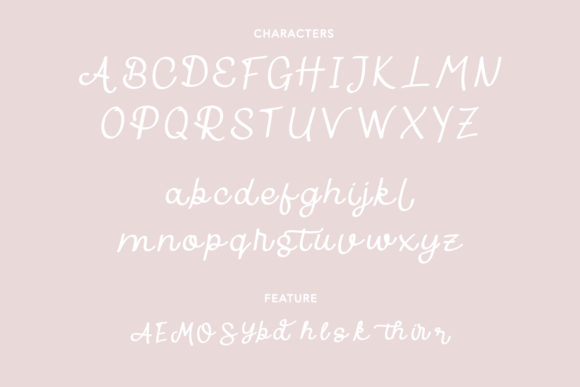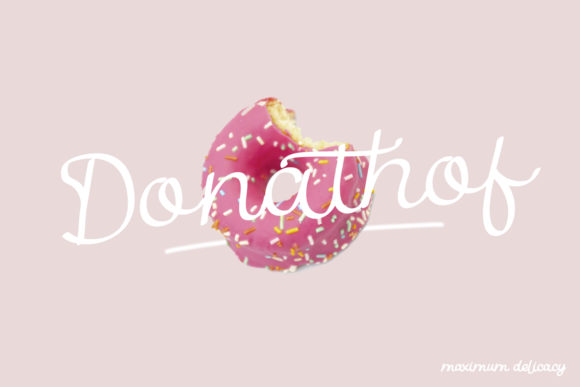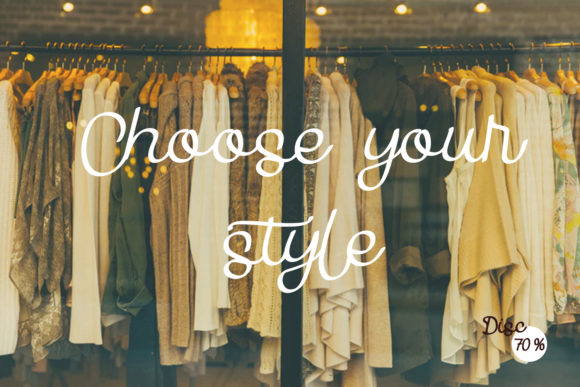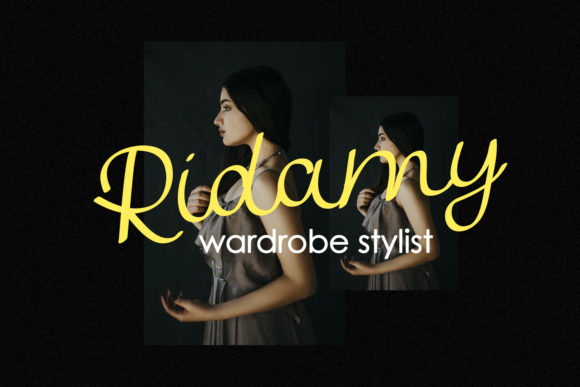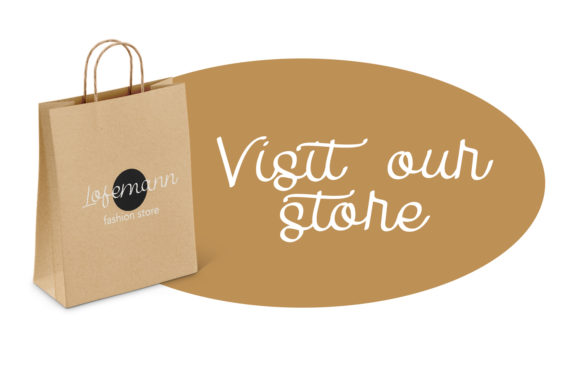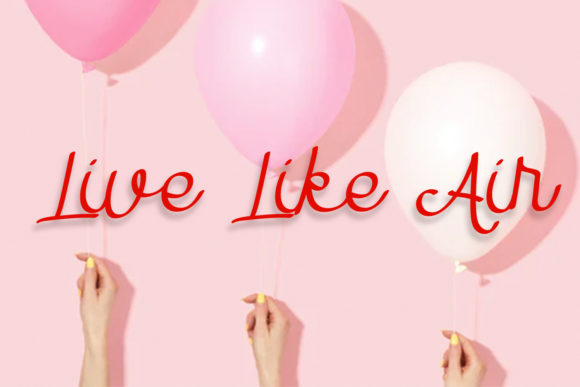
Discover the Delicate Charm of Bilanthy Font
Have you ever found yourself lost in a sea of design ideas, struggling to bring your creative vision to life? The moment when everything clicks and your project starts to take shape – that’s what makes all the hard work worth it. It’s a rush of excitement and inspiration that drives us to keep pushing the boundaries of what’s possible.
That’s exactly what we’re excited to share with you today – a font that will add a touch of magic to your designs. Introducing Bilanthy Font, a delicate and cursive handwritten font that exudes joy and romance. Whether you’re working on a wedding invitation, a children’s book, or a social media post, this beautiful font will elevate your project and make it truly unforgettable.
Bilanthy Font Key Features
- Unique Characteristic: The Bilanthy Font features a unique blend of modern and elegant styles, making it suitable for both contemporary and traditional designs.
- Font Weight: Available in Light, Regular, Medium, and Bold weights, allowing for flexibility in font styling and emphasis.
Bilanthy Font Review
As a designer, I was excited to dive into the Bilanthy Font and see what it had to offer. Overall, I was impressed with the clean and modern aesthetic that it brings to any design project. ✨ The font is highly versatile and works well in a variety of contexts, from headings to body text.
Here are some of the things that I liked about Bilanthy:
- ✨ Clean and modern design aesthetic
- ✨ Highly versatile and works well in a variety of contexts
- ✨ Easy to read, even at smaller font sizes
However, as with any font, there are some limitations:
- ⚠️ Limited character set, which may be a problem for some users who require non-English characters
- ⚠️ Not as extensive a range of weights and styles as some other fonts
- ⚠️ May not be suitable for use in very small font sizes, as it can become difficult to read
Overall, I would give the Bilanthy Font a solid 4 out of 5 stars. While it has some limitations, its clean and modern design aesthetic makes it a great choice for a wide range of design projects. With a little creativity and experimentation, I think Bilanthy has the potential to be a truly versatile and effective font choice.
Bilanthy Font Practical Application Guide
Tips for Getting the Most Out of Bilanthy Font
1. Experiment with different font sizes and styles to find the perfect balance for your design.
2. Use Bilanthy Font in combination with other elegant fonts to create a sophisticated look.
3. Take advantage of the font’s advanced features, such as ligatures and swashes, to add unique touches to your design.
Common Use Cases for Bilanthy Font
1. Wedding invitations and stationery
2. Luxury brand logos and packaging
3. High-end magazine and book covers
Alternatives to Bilanthy Font for Designers
Lato Font is a clean and modern sans-serif typeface suitable for various design applications, including headlines, body text, and logos. It is highly legible and versatile, making it an excellent choice for web design, print materials, and digital interfaces.
Comparison to Bilanthy Font: While both fonts are modern and clean, Lato Font has a more neutral tone and is more readable in small sizes. It is also more widely supported across various devices and platforms.
Open Sans Font is a highly legible sans-serif typeface designed for digital interfaces and print materials. It is optimized for readability on various devices, including mobile phones, tablets, and computers. Open Sans Font is ideal for body text, headings, and titles.
Q: What is the recommended font size for the Bilanthy Font?
The recommended font size for the Bilanthy Font varies depending on the application and the desired level of legibility. As a general guideline, we recommend using font sizes between 12pt and 24pt for body text, and 36pt or larger for headings and titles.